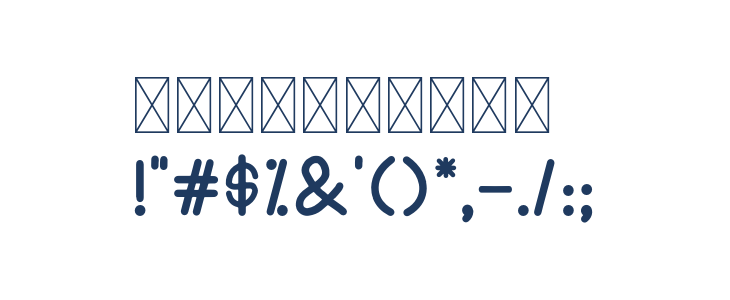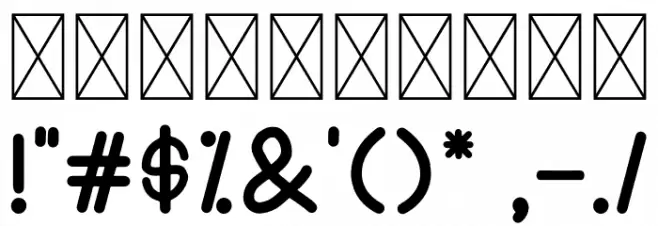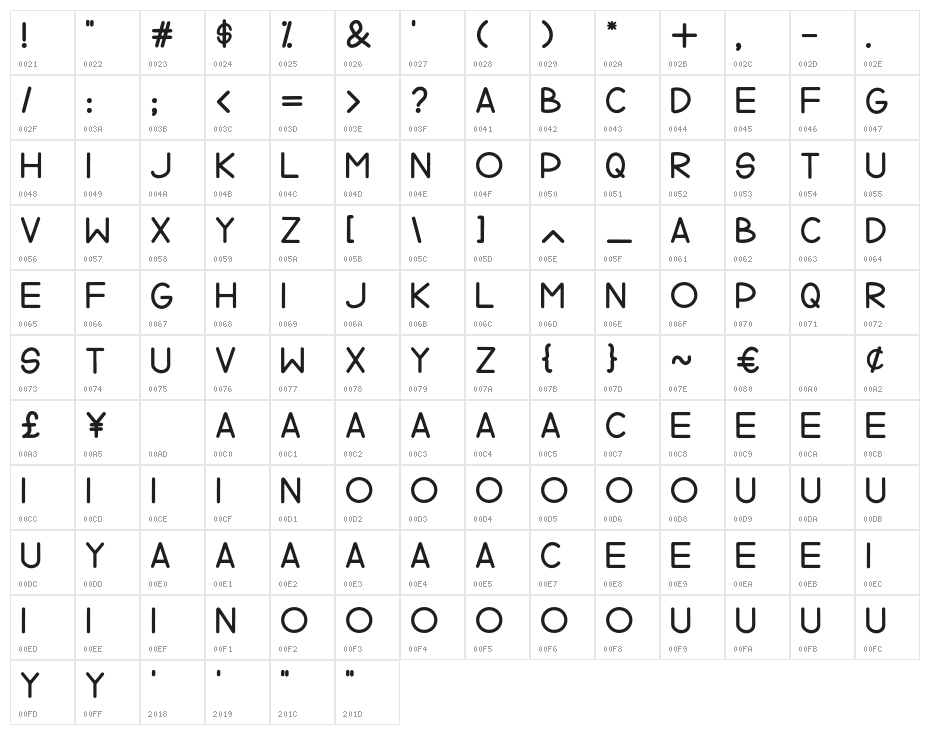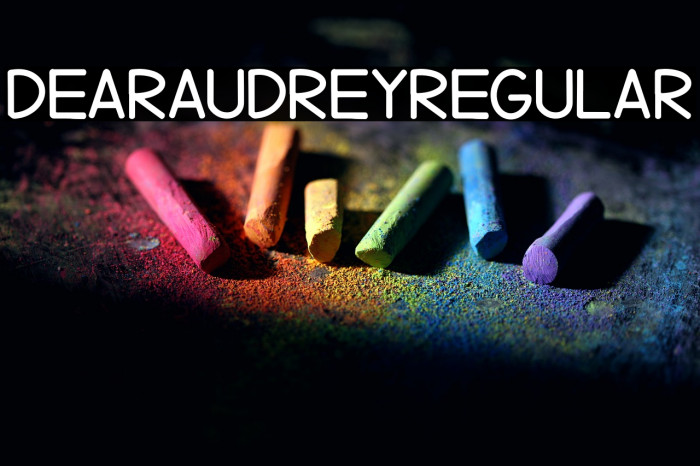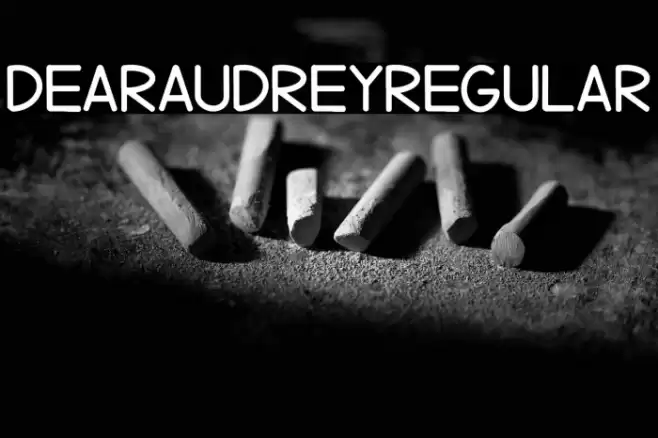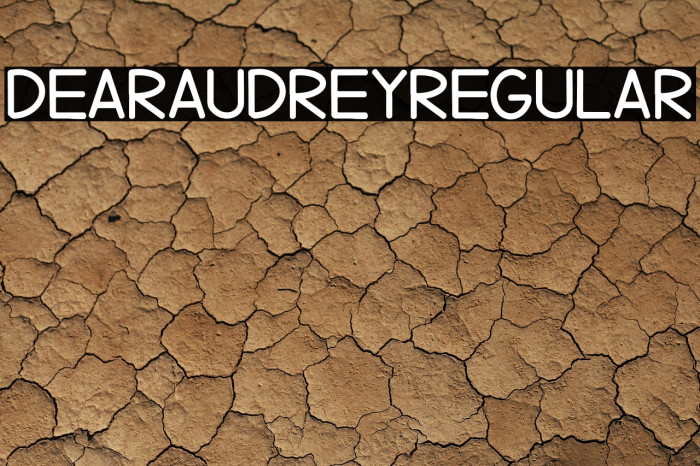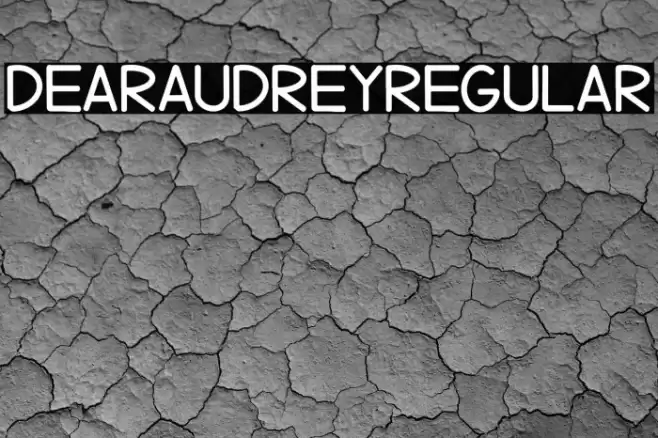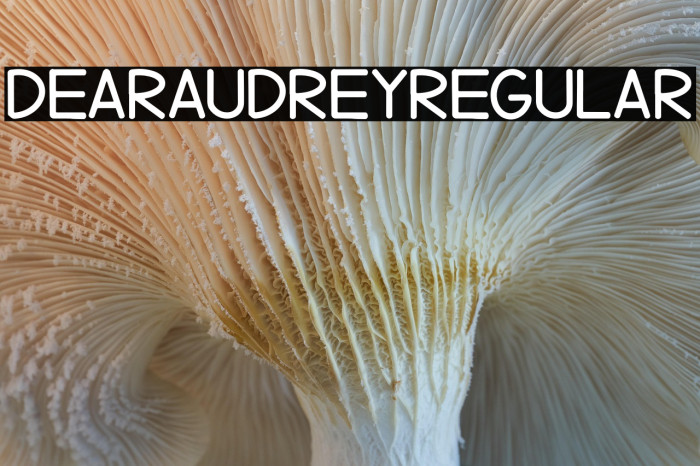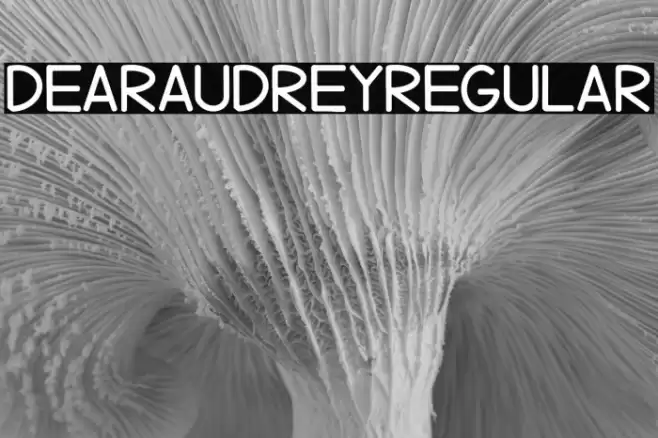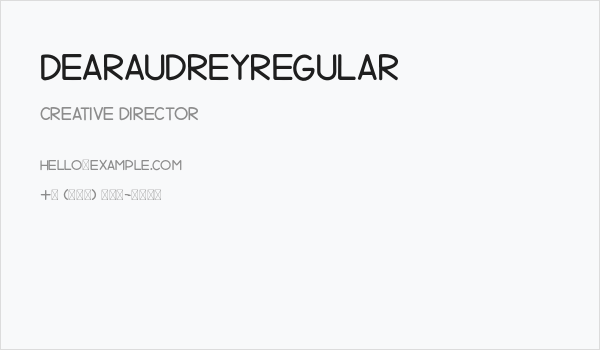
DearAudreyRegular Font
DearAudreyRegular Description
This font features a playful and rounded design, characterized by its smooth curves and consistent line thickness. The uppercase letters are bold and prominent, while the lowercase letters maintain a friendly and approachable appearance. The numerals and special characters are designed to match the overall style, ensuring a cohesive look across all text. The font's simplicity and clarity make it suitable for a variety of applications, from casual branding to children's books.
| Proposed Projects | Ideal for children's books, casual branding, playful posters, and greeting cards. |